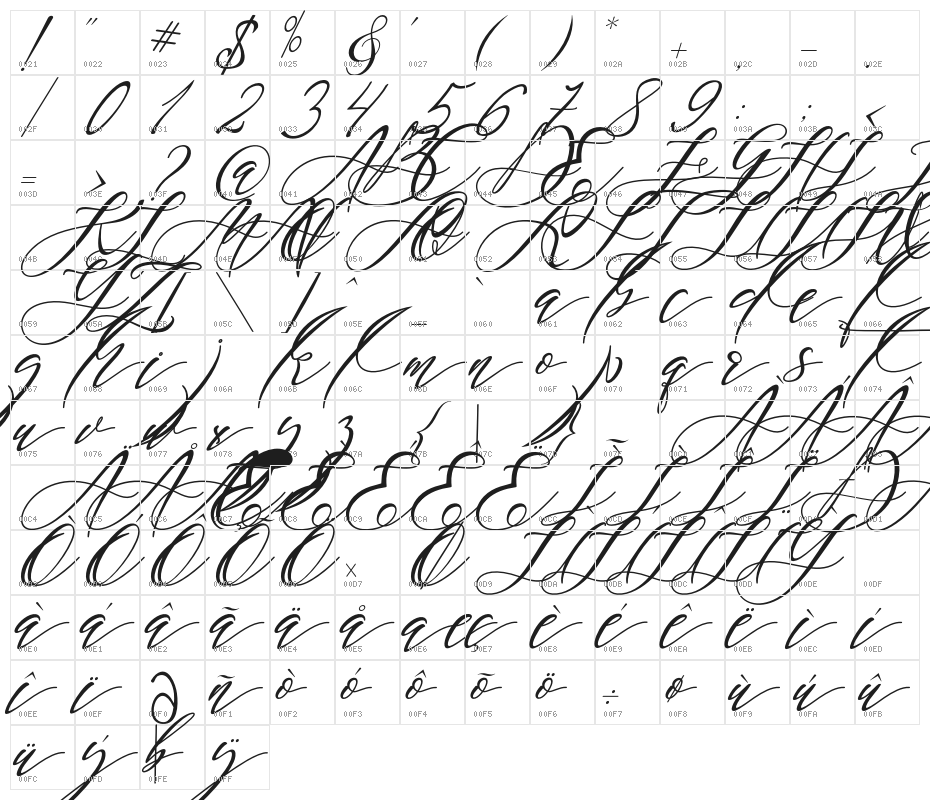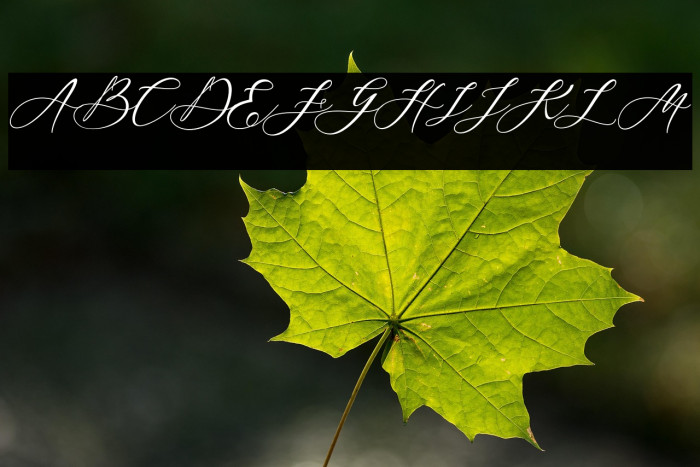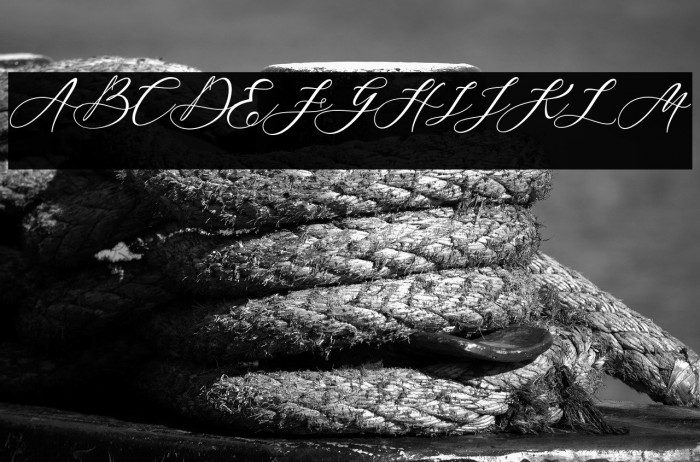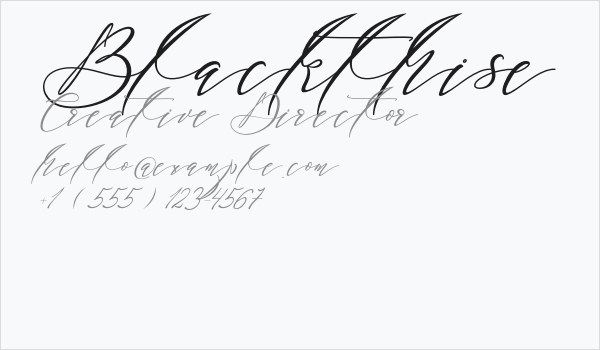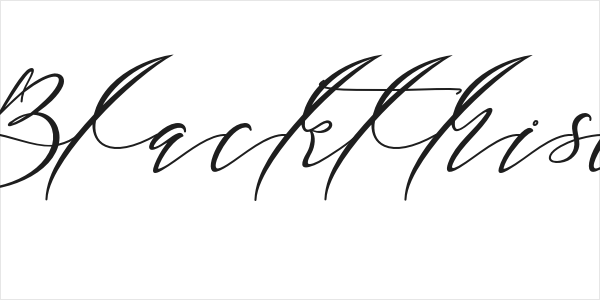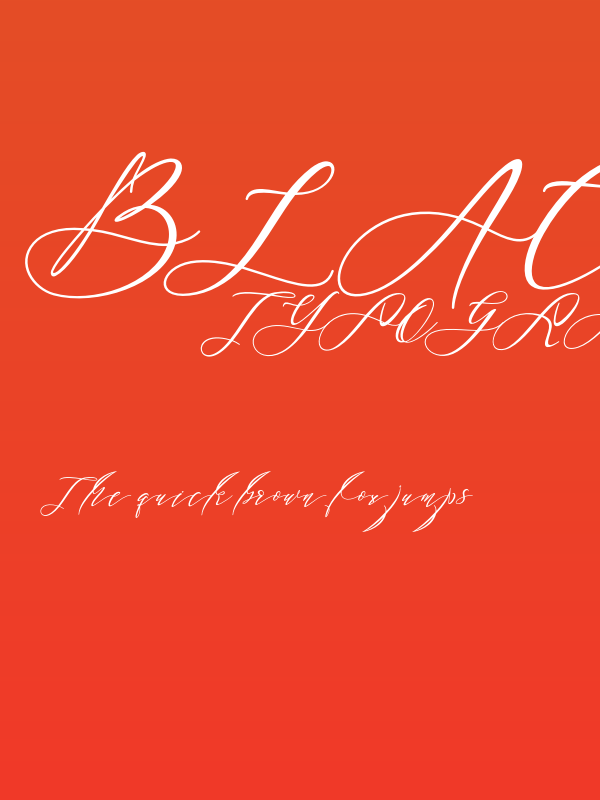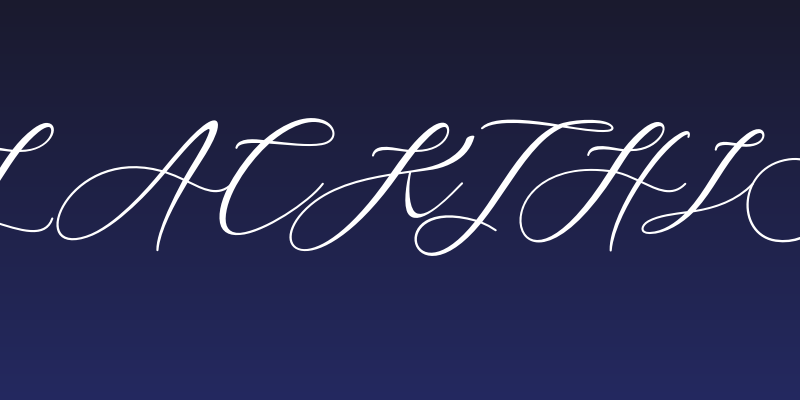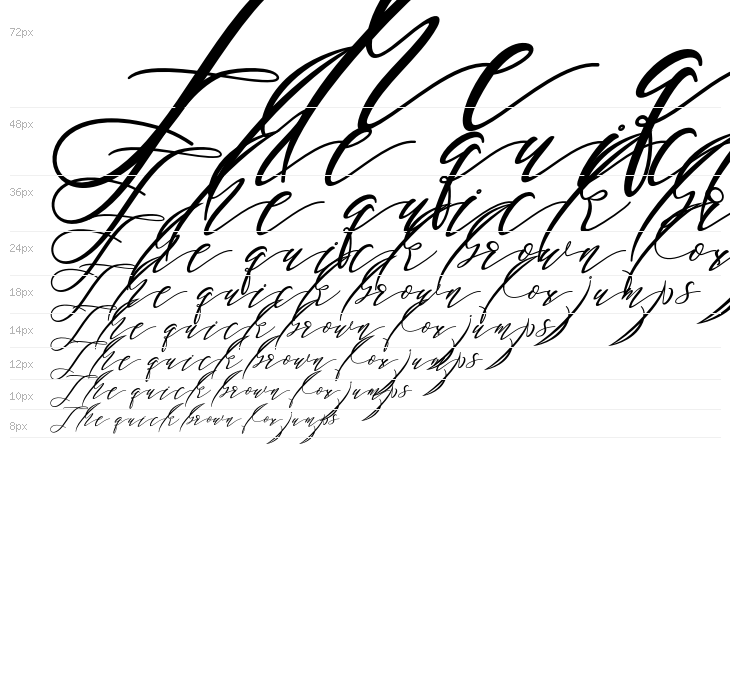
Blackthise Font
Blackthise Description
This font features an elegant and flowing script style, characterized by its graceful curves and intricate loops. The uppercase letters exhibit a sophisticated flair, with extended strokes that add a touch of drama and elegance. The lowercase letters maintain a consistent fluidity, enhancing readability while preserving the artistic nature of the script. Numbers are bold and slightly exaggerated, complementing the overall aesthetic. Special characters are designed with the same attention to detail, ensuring a cohesive look across all glyphs. This font is ideal for projects that require a touch of sophistication and elegance.